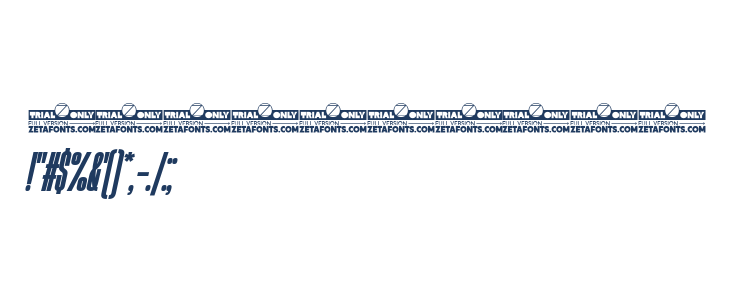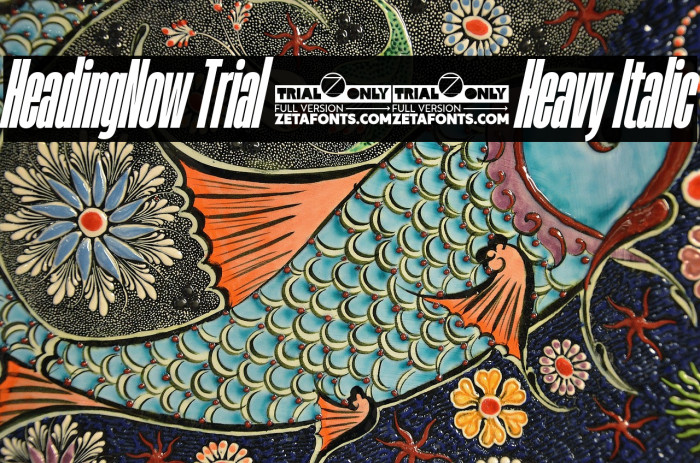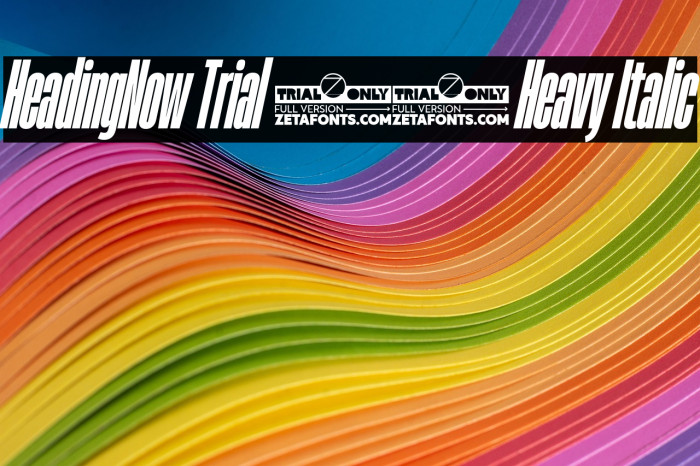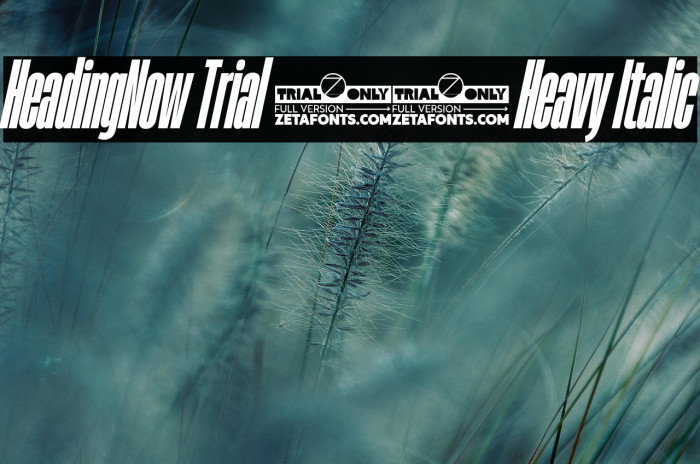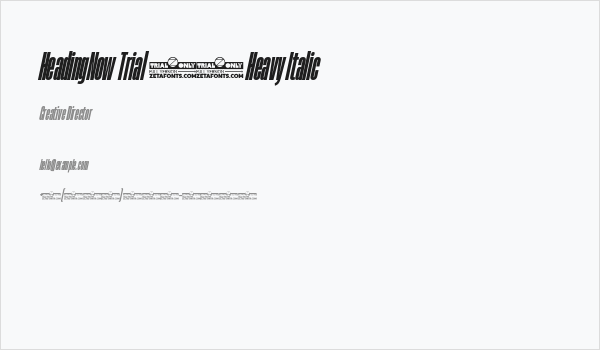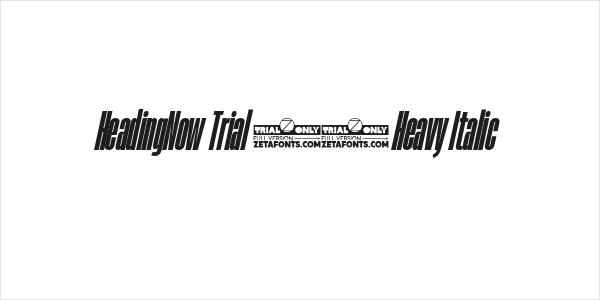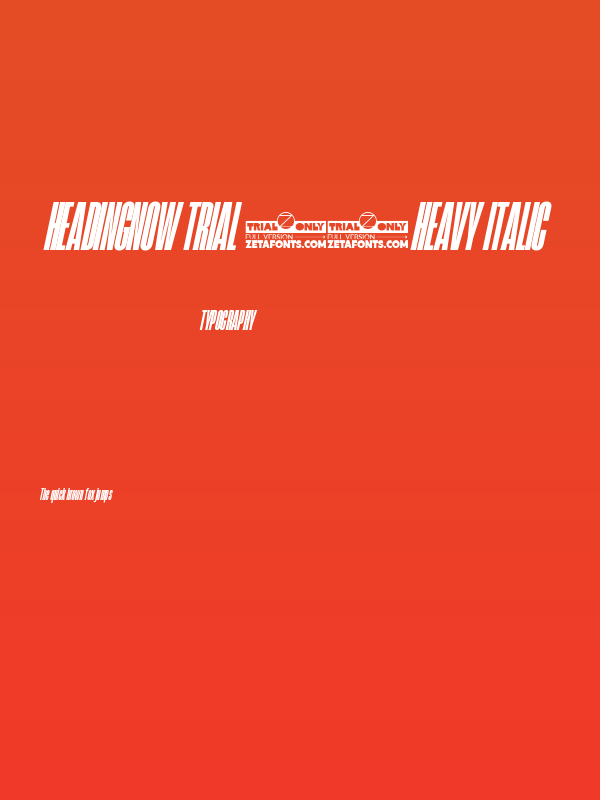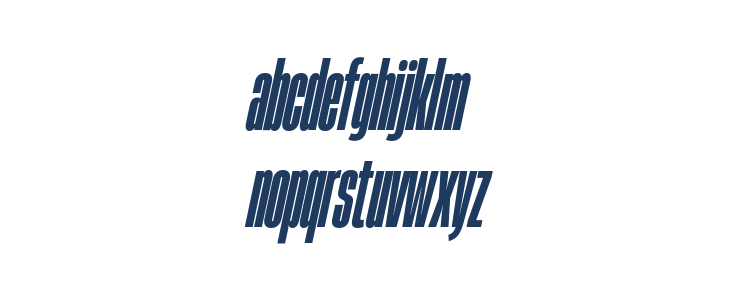
HeadingNow Trial 18 Heavy Italic Font
HeadingNow Trial 18 Heavy Italic Description
This font exhibits a bold and dynamic style, characterized by its heavy weight and pronounced italic slant. The uppercase and lowercase letters are designed with a strong presence, making them ideal for impactful headlines. The characters are tightly spaced, enhancing the cohesive and compact appearance. The font's high contrast in stroke thickness adds to its striking visual appeal, making it suitable for modern and attention-grabbing designs. The special characters and numerals maintain the same bold and italicized style, ensuring consistency across all elements.
| Proposed Projects | Ideal for use in advertising, branding, and editorial design where a strong and modern statement is needed. |